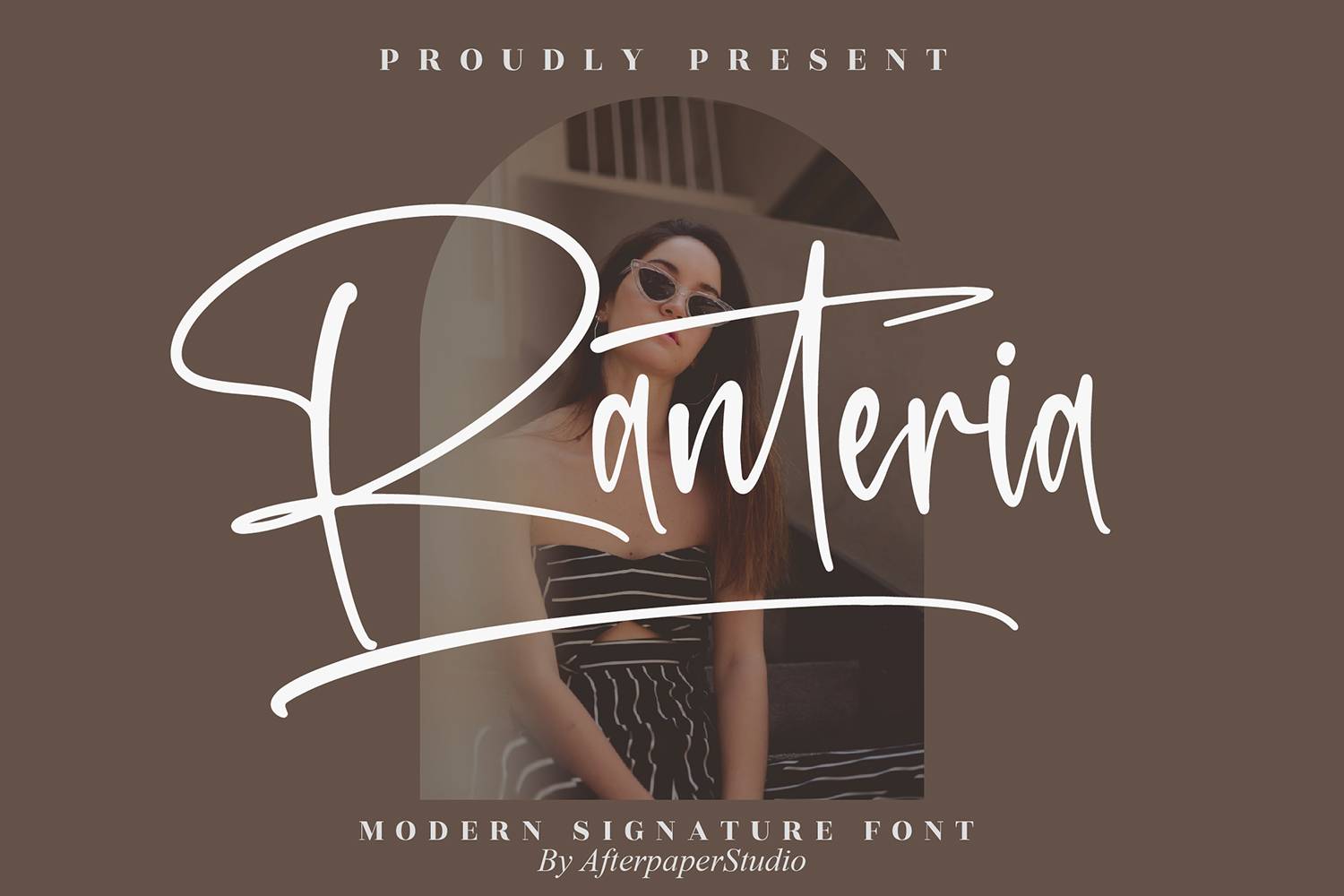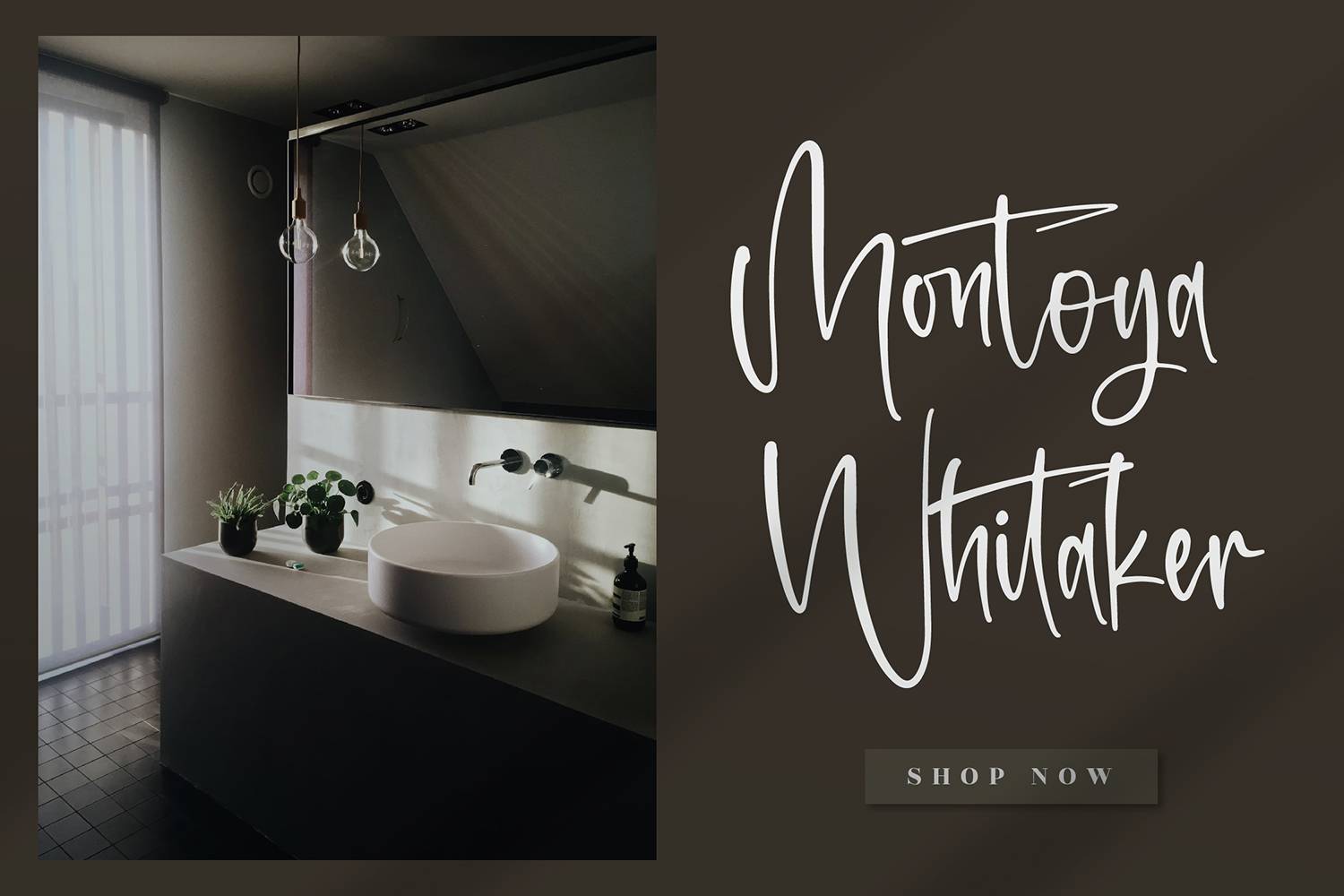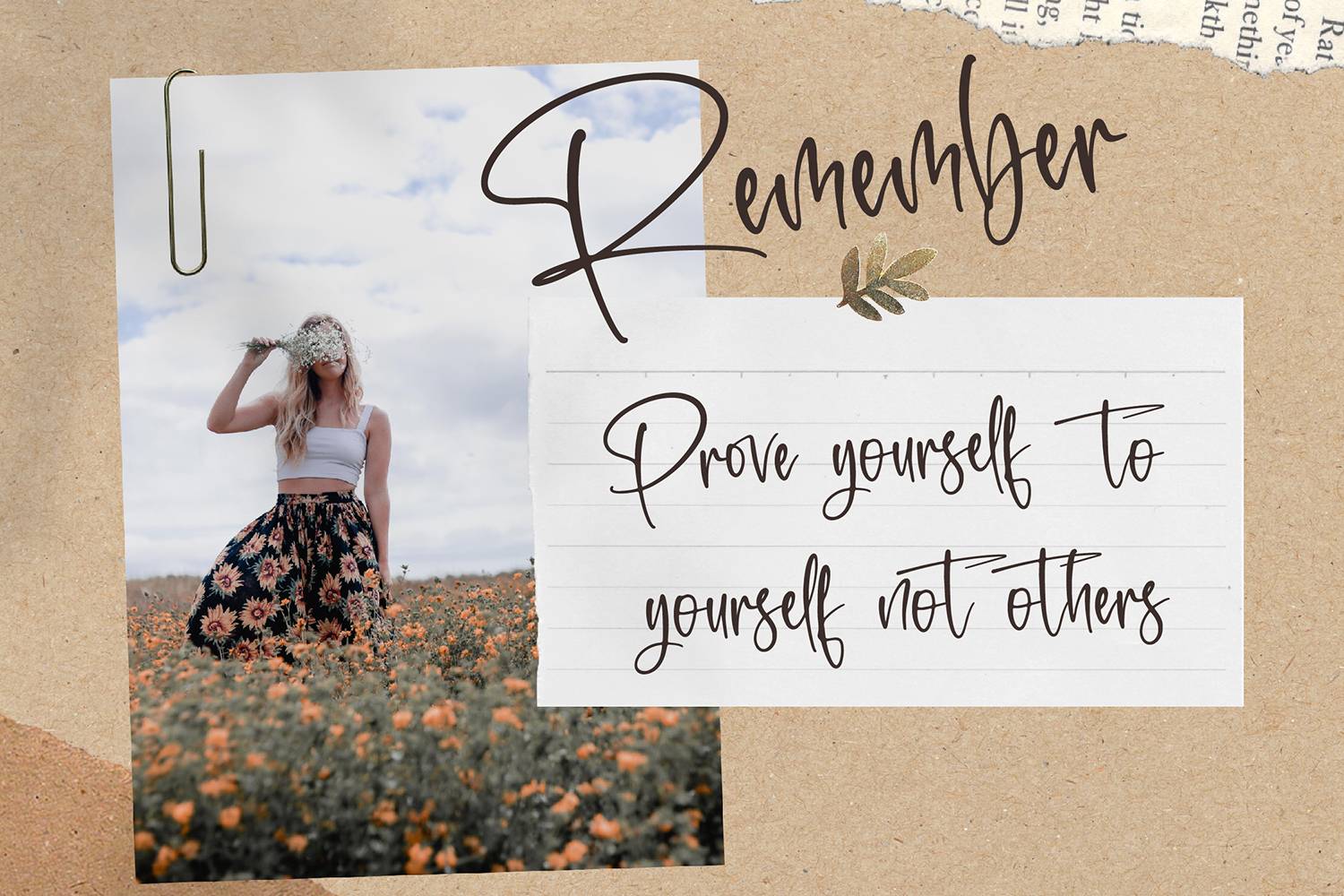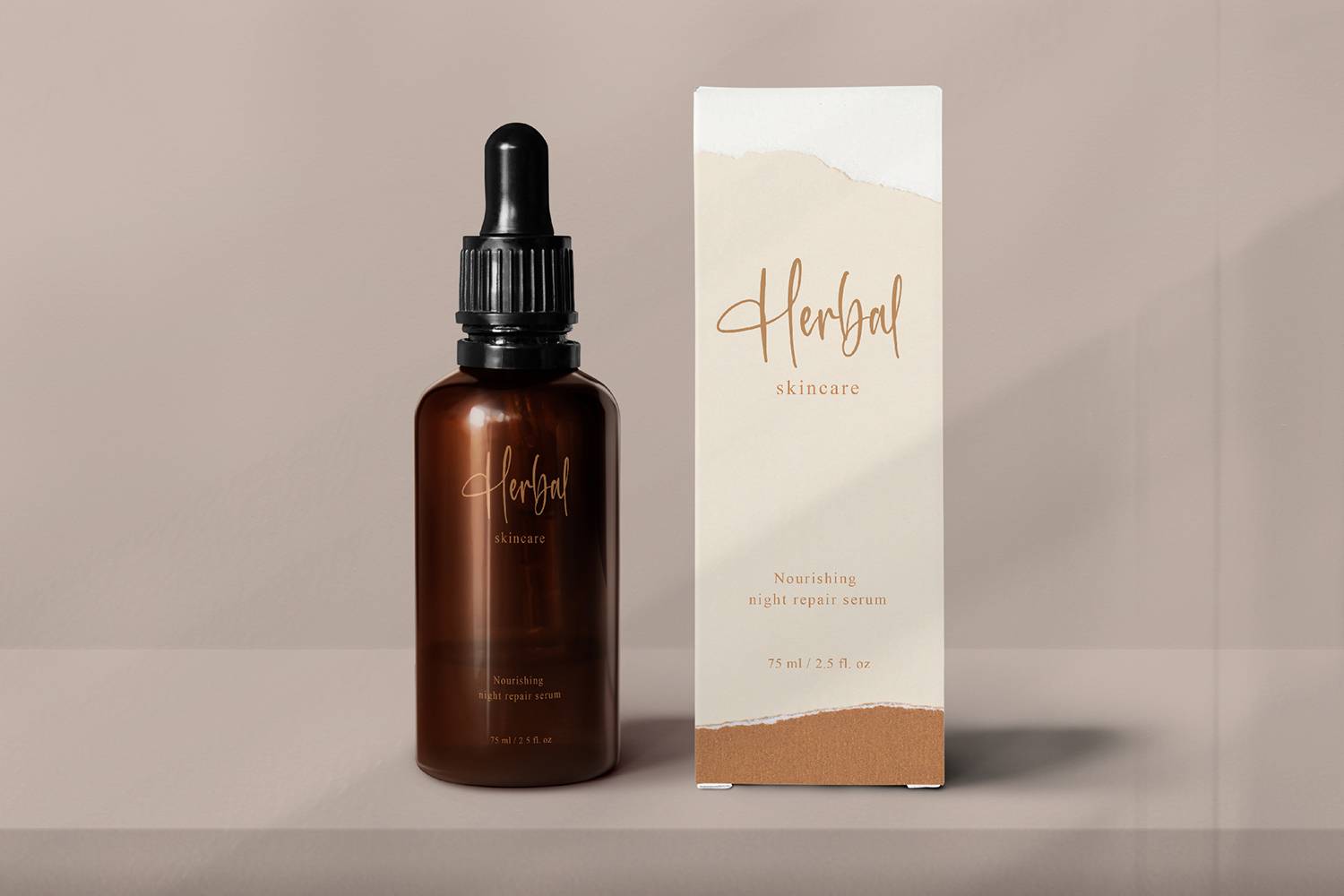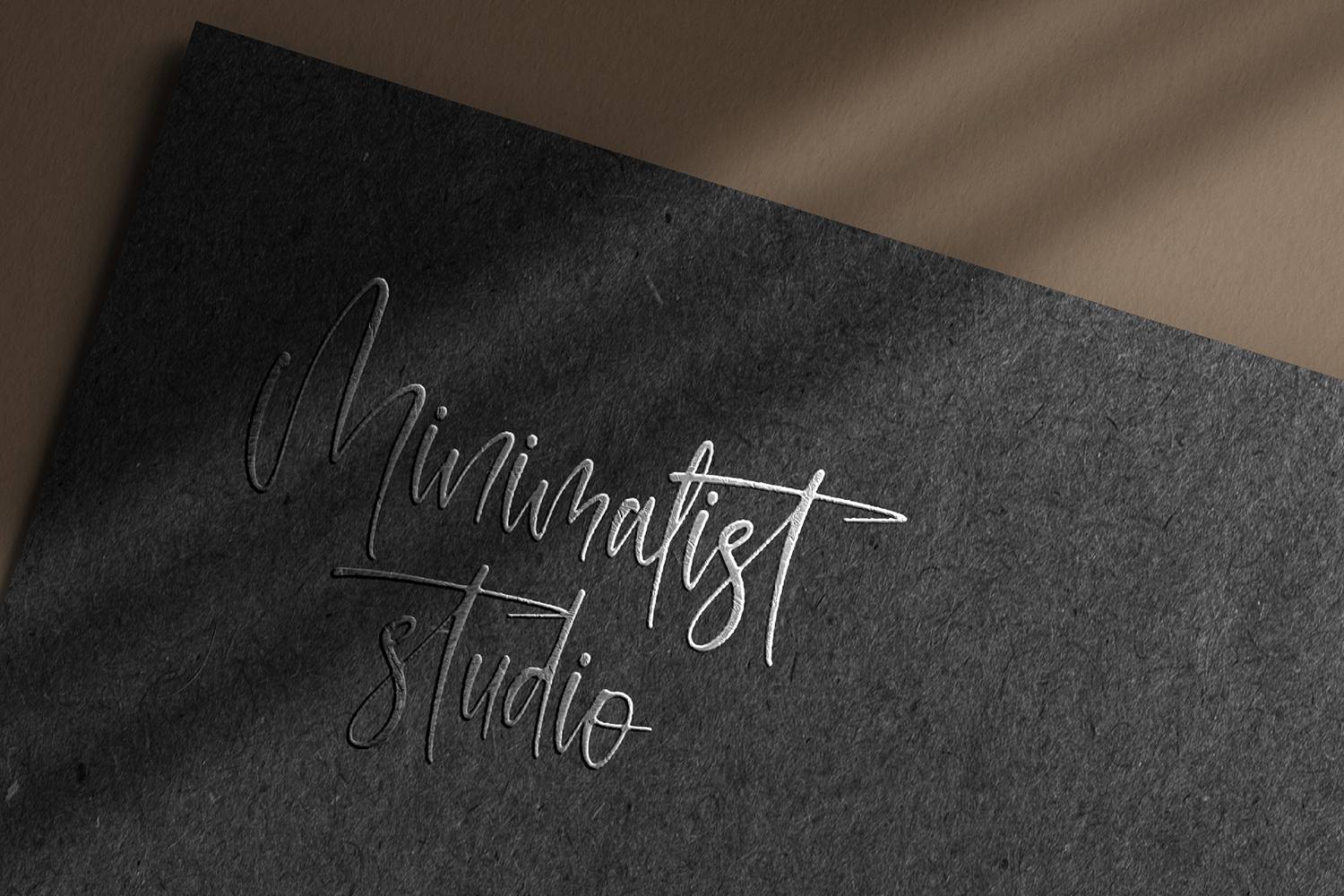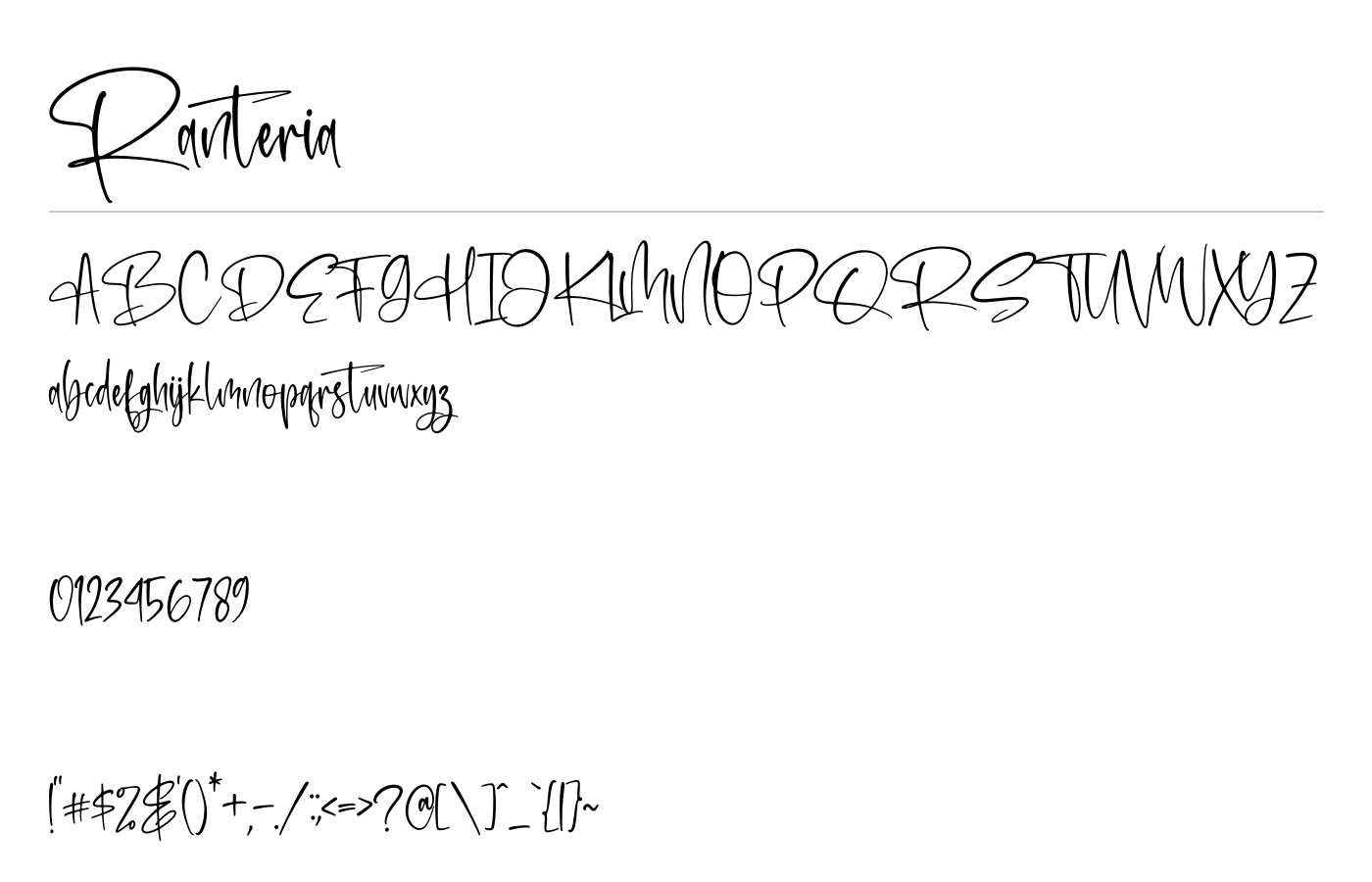
Ranteria is a slender, playful script font with a casual, handwritten feel that features tall, narrow letterforms and varying stroke widths. Its energetic and slightly quirky style makes it perfect for adding a personal, artistic touch to branding, invitations, and creative projects that seek a modern yet friendly vibe. This font works best in display settings like logos, headlines, and packaging where its unique character can shine.
Ranteria Font
About Ranteria Font